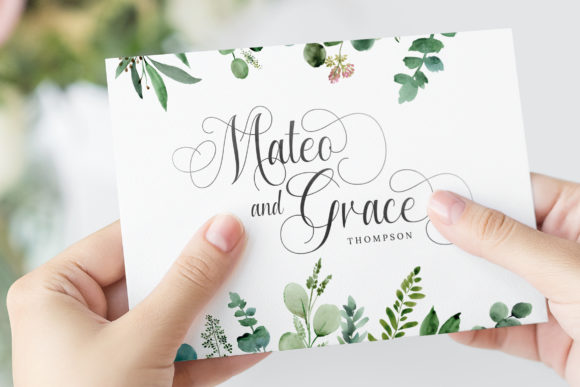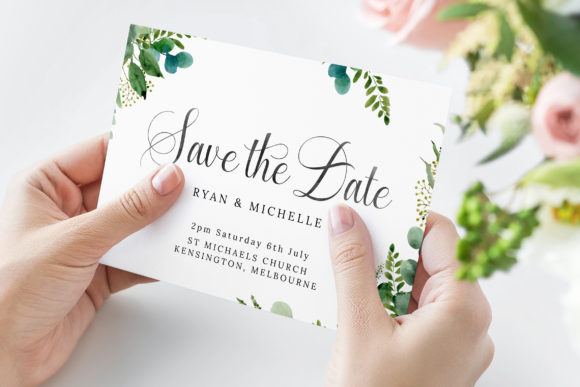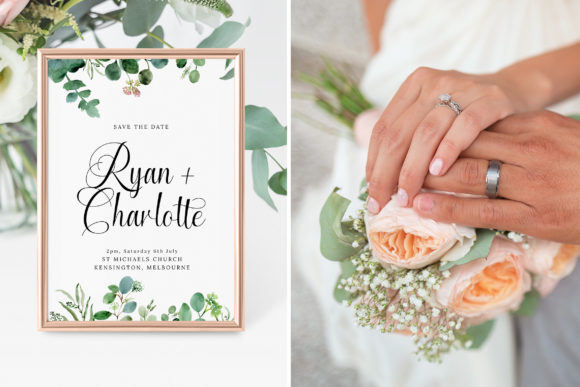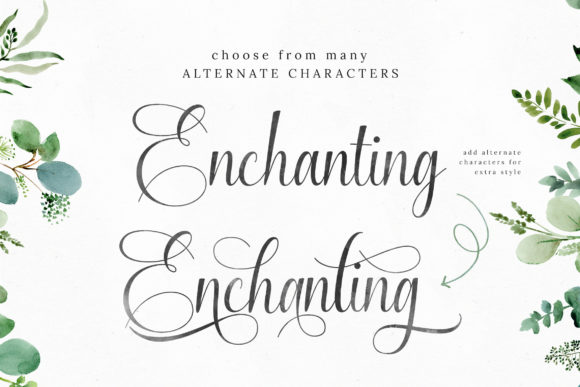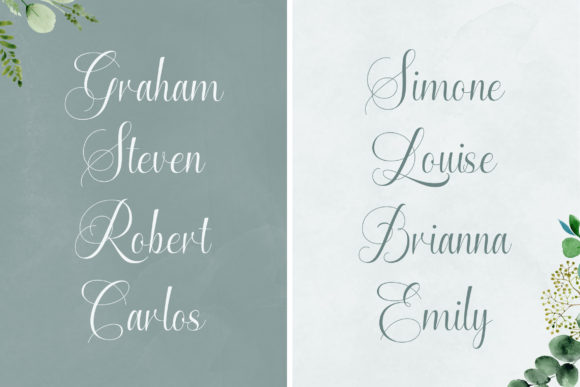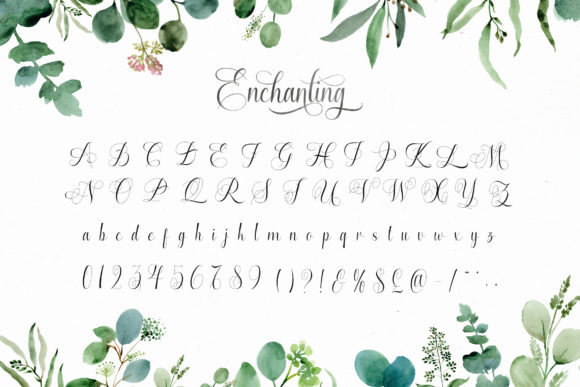
Discover the Magic of Enchanting Script Font
Are you a designer or crafter looking for a font that can add a touch of elegance and sophistication to your projects? Look no further than the Enchanting Script Font. This lovely and timeless handwritten font is perfect for creating eye-catching logos, branding, and quotes that will leave a lasting impression on your audience.
The Unique Charm of Enchanting Script
What sets Enchanting Script apart from other fonts is its unique and beautiful touch. Every letter has been carefully crafted to give your design a personal and handmade feel. The font’s elegant swashes and flourishes add a touch of sophistication, making it perfect for high-end branding and design projects.
Enchanting Script Font is PUA (Private Use Area) encoded, which means you can access all of the glyphs and swashes with ease. This encoding allows you to unlock the full potential of the font, giving you the flexibility to create unique and customized designs. Whether you’re a seasoned designer or a beginner, PUA encoding makes it easy to get the most out of Enchanting Script.
Enchanting Script Font is the perfect choice for creating eye-catching logos, branding, and quotes. The font’s elegant and sophisticated design makes it ideal for:
- Logos: Create a lasting impression with a custom logo that showcases your brand’s personality and style.
- Branding: Develop a consistent brand identity with Enchanting Script’s elegant and sophisticated design.
- Quotes: Add a touch of elegance and sophistication to your quotes and sayings.
Why Choose Enchanting Script Font?
So why choose Enchanting Script Font over other fonts? Here are just a few reasons:
- Unique and beautiful design: Every letter has a unique and beautiful touch that will make your design stand out.
- PUA encoded: Easy access to all glyphs and swashes, giving you the flexibility to create customized designs.
- Timeless and elegant: Enchanting Script’s design is timeless and elegant, making it perfect for high-end branding and design projects.
- Versatile: Perfect for logos, branding, quotes, and more.
Tips for Using Enchanting Script Font
Here are a few tips for getting the most out of Enchanting Script Font:
- Experiment with different sizes and colors to find the perfect combination for your design.
- Use the font’s swashes and flourishes to add a touch of elegance and sophistication to your design.
- Pair Enchanting Script with other fonts to create a unique and customized look.
- Don’t be afraid to get creative and try new things – Enchanting Script is a versatile font that can be used in a variety of ways.
Enchanting Script Font is a lovely and timeless handwritten font that is perfect for designers and crafters looking to add a touch of elegance and sophistication to their projects. With its unique and beautiful design, PUA encoding, and versatility, Enchanting Script is the perfect choice for creating eye-catching logos, branding, and quotes. So why wait? Discover the magic of Enchanting Script Font today and take your designs to the next level!